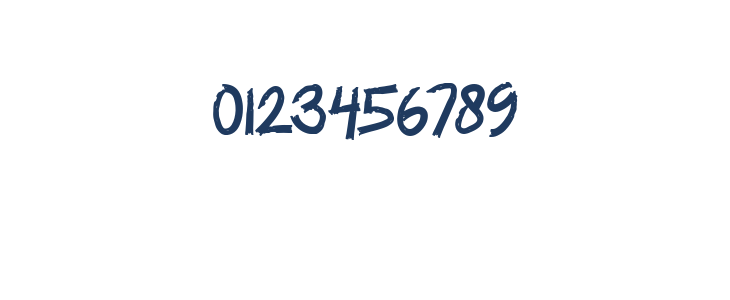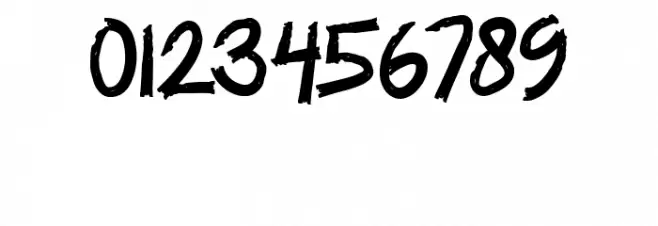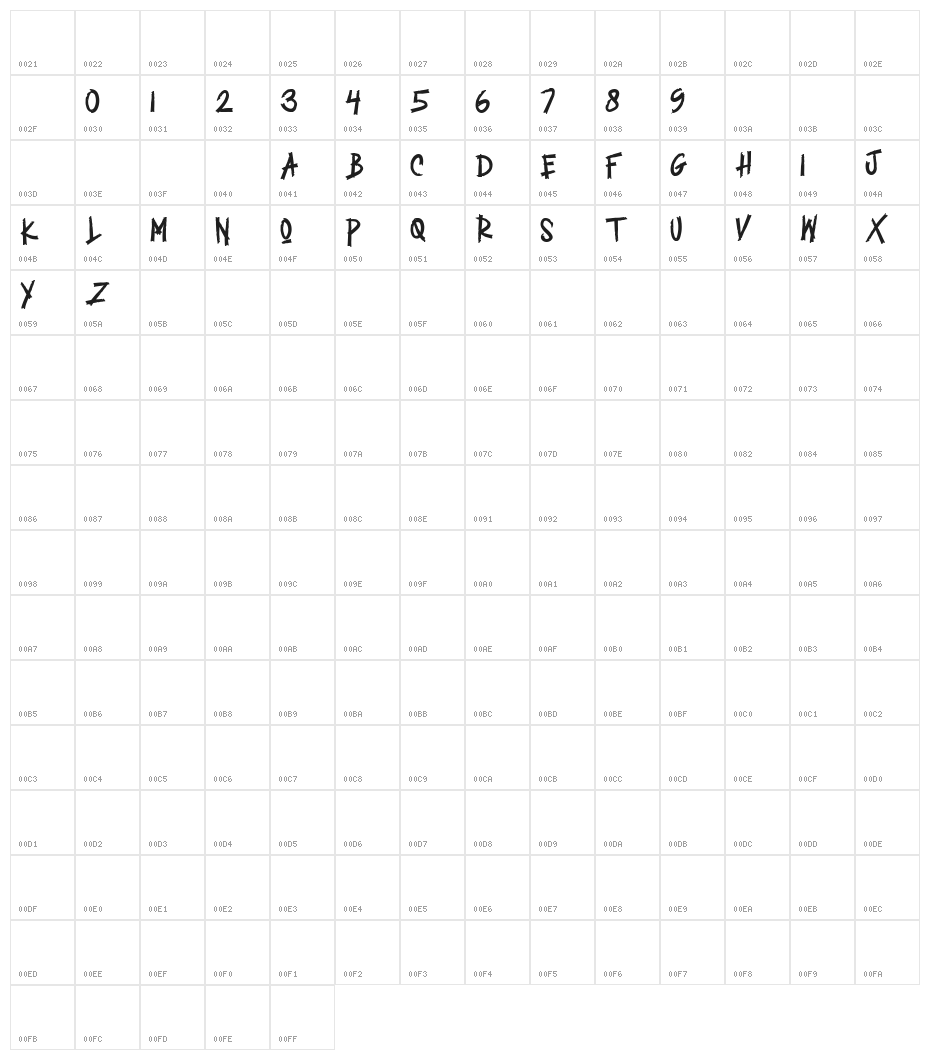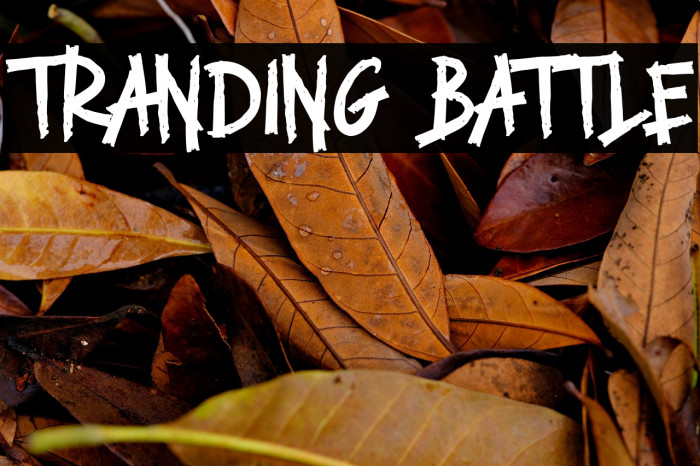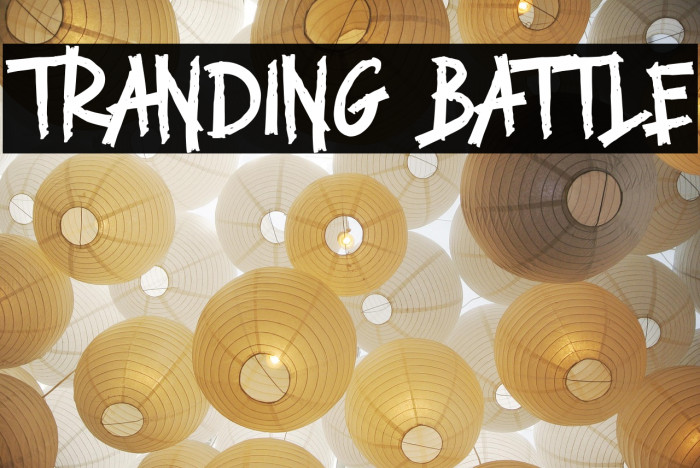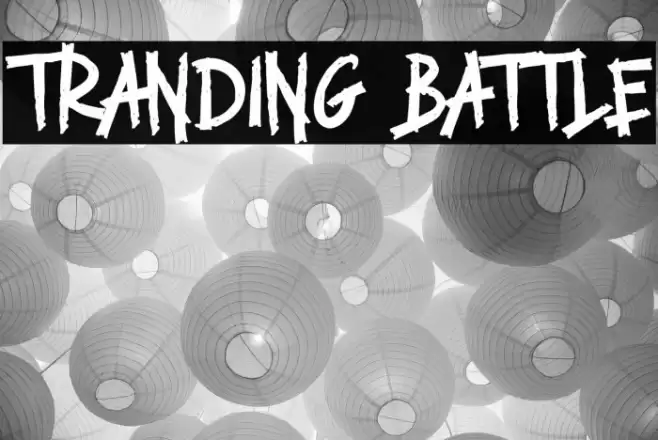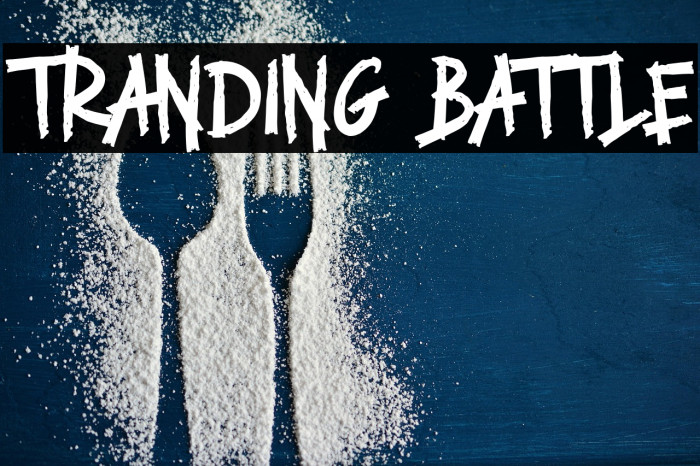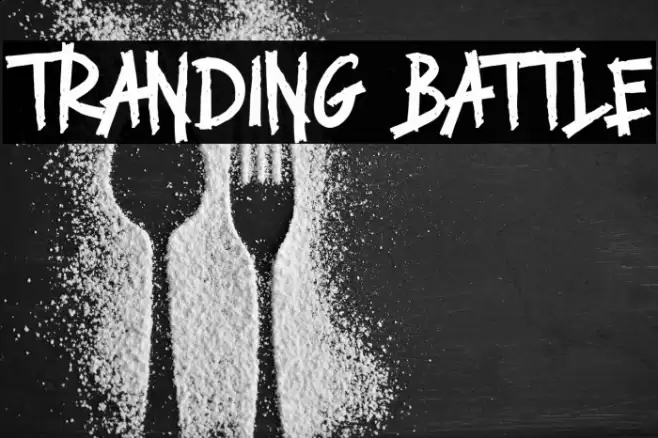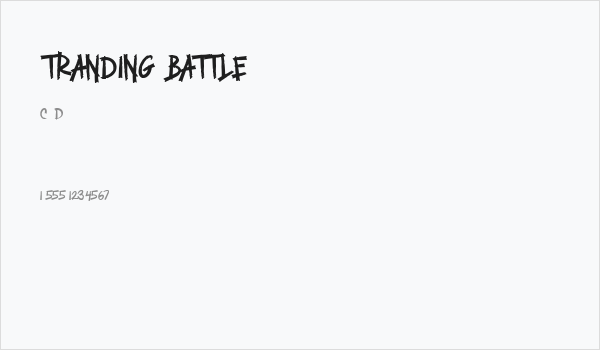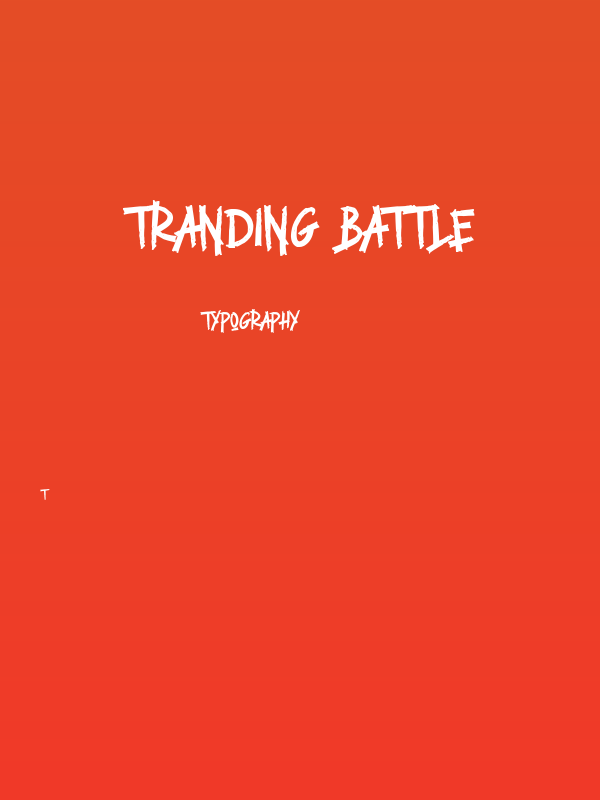
TRANDING BATTLE Font
TRANDING BATTLE Description
This font exudes a bold and energetic style, characterized by its rough, brush-like strokes that convey a sense of movement and dynamism. The uppercase letters are particularly striking, with exaggerated angles and a slightly uneven baseline that adds to the font's edgy and rebellious feel. The numbers maintain this aesthetic, ensuring consistency across all characters. The font's design is reminiscent of street art or graffiti, making it ideal for projects that require a bold statement or an urban, contemporary vibe. Its unique style captures attention and adds a creative flair to any design.
| Overall Style | Modern, Urban |
| Proposed Projects | Ideal for posters, album covers, streetwear branding, and urban-themed designs. |